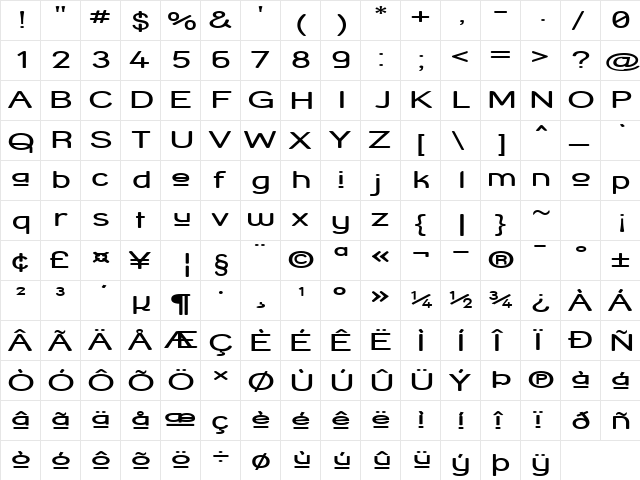
Street Corner Upper Extend Regular
Design Context for Street Corner Upper Extend Typeface
Street Corner Upper Extend offers clean, dependable letterforms without strong stylistic allegiance, making it a practical choice for designers who need flexibility.